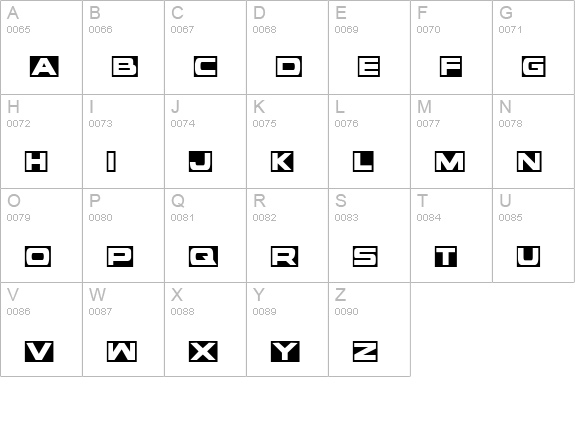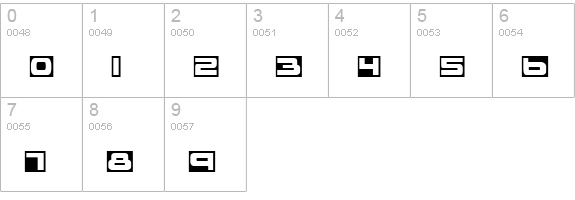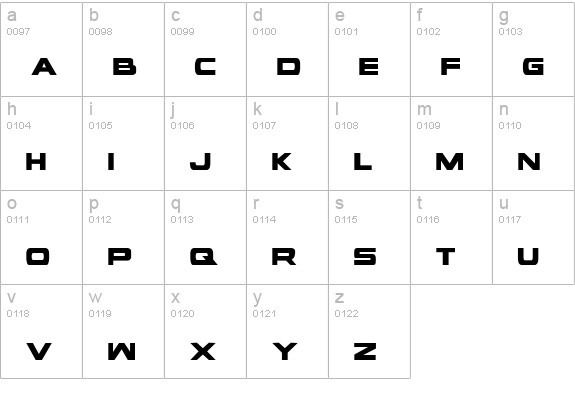
voxBOX Font Details
Introducing voxBOX font, a stunning display typeface that effortlessly combines modern aesthetics with a touch of vintage charm. This font is the epitome of versatility, perfectly suited for a wide range of creative projects, from branding and advertising to editorial design and beyond. With its clean lines and distinctive letterforms, voxBOX effortlessly captures attention and adds a unique flair to any design. Its carefully crafted curves and sharp angles create a harmonious balance, resulting in a font that is both eye-catching and legible. But what sets voxBOX apart is not just its striking design, but also its accessibility. This exceptional font is available for free, allowing designers and enthusiasts alike to unleash their creativity without any constraints. Simply head over to FontsMarket.com and download voxBOX font to add a touch of sophistication to your next project. Whether you're working on a logo, a poster, a website, or any other visual masterpiece, voxBOX font will elevate your design to new heights. Its versatility and timeless appeal make it a valuable asset in any designer's toolkit. Don't miss out on this incredible opportunity to enhance your creative endeavors with voxBOX font. Download it for free today at FontsMarket.com and let your imagination run wild. Embrace the power of voxBOX and create designs that truly stand out from the crowd.